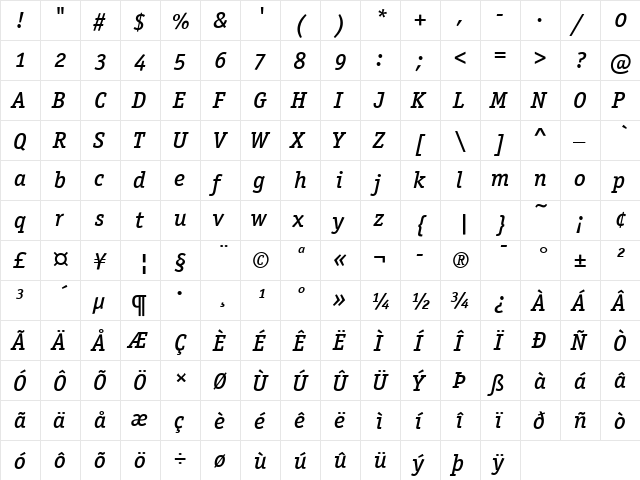
OfficinaSerITC Medium Italic
Design Context for OfficinaSerITC Typeface
OfficinaSerITC is a composed and adaptable typeface that performs quietly and consistently across a wide range of design contexts. Its italic angle brings a sense of urgency and motion to the letterforms.
Pro Tip: Use OfficinaSerITC for emphasis, pull quotes, and subheadings where its slanted energy can add rhythm to the layout.